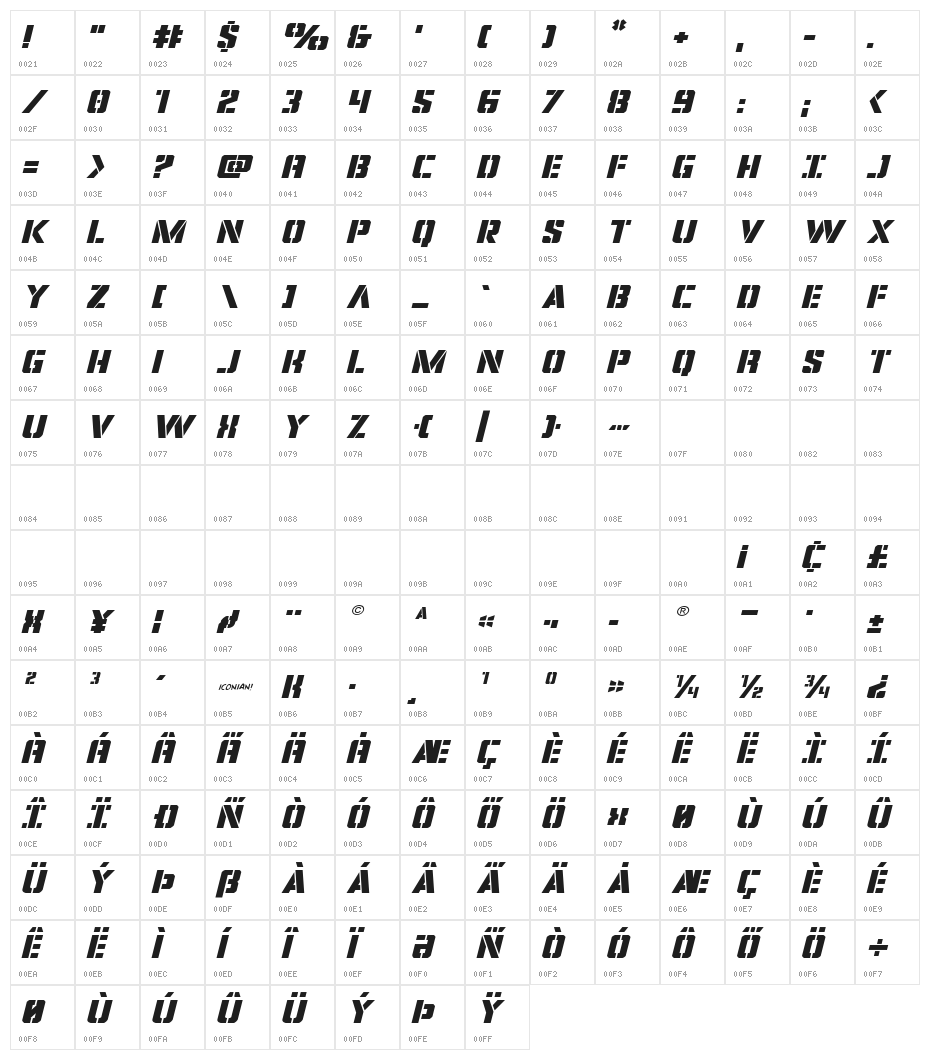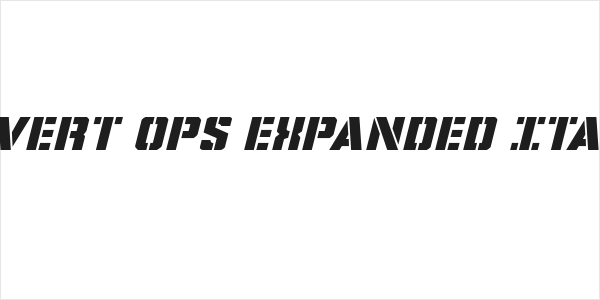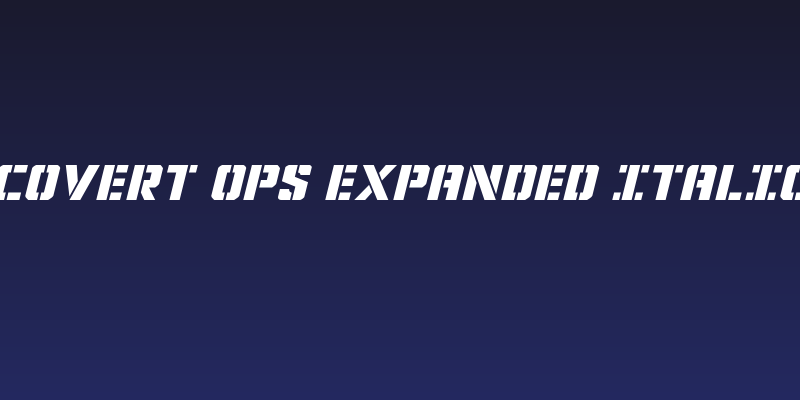
Covert Ops Expanded Italic Font
Covert Ops Expanded Italic Description
This font features a bold, expanded style with a distinct italic slant, giving it a dynamic and forward-moving appearance. The characters are designed with sharp angles and a geometric structure, creating a sense of urgency and modernity. The uppercase and lowercase letters maintain a consistent style, with the same angular cuts and bold presence. Numbers and special characters are equally bold and match the overall aesthetic, making them suitable for impactful designs. The font's expanded width enhances its readability, while the italic slant adds a unique flair, making it ideal for attention-grabbing headlines and titles.
| Proposed Projects | Ideal for use in action-themed posters, video game titles, sports branding, and any project requiring a bold, dynamic look. |